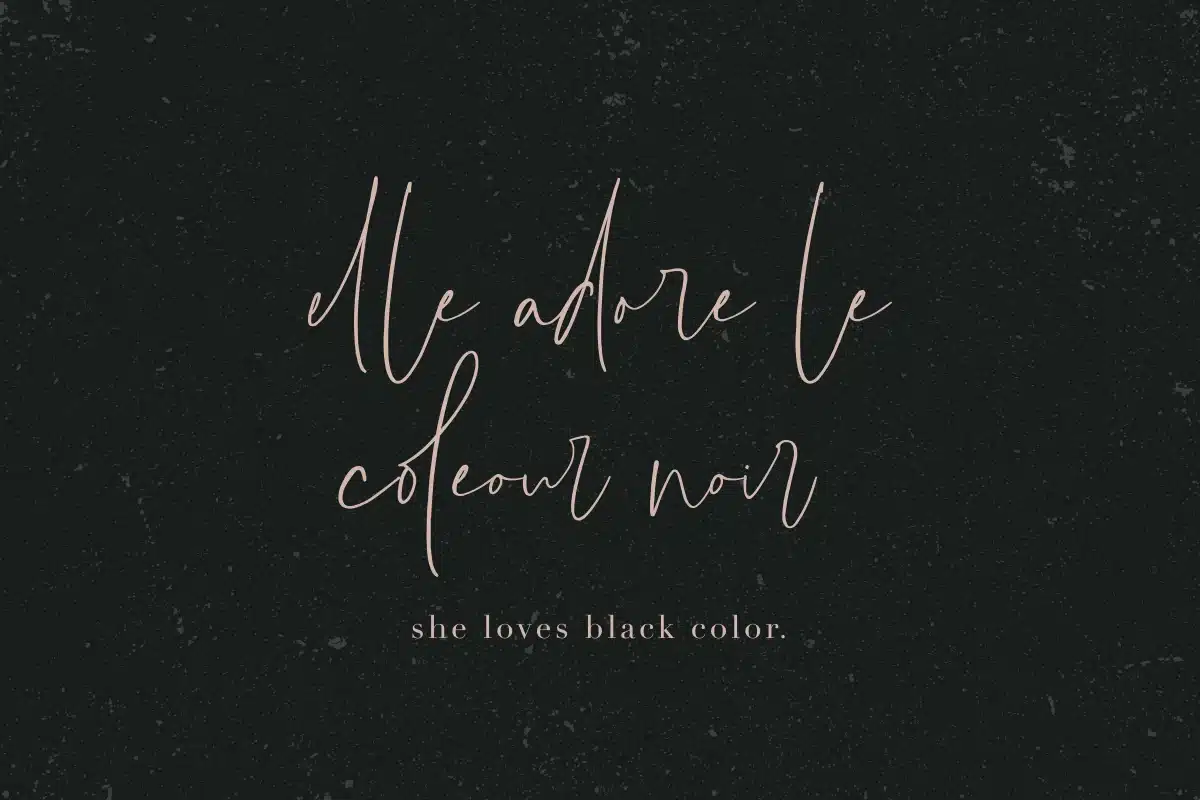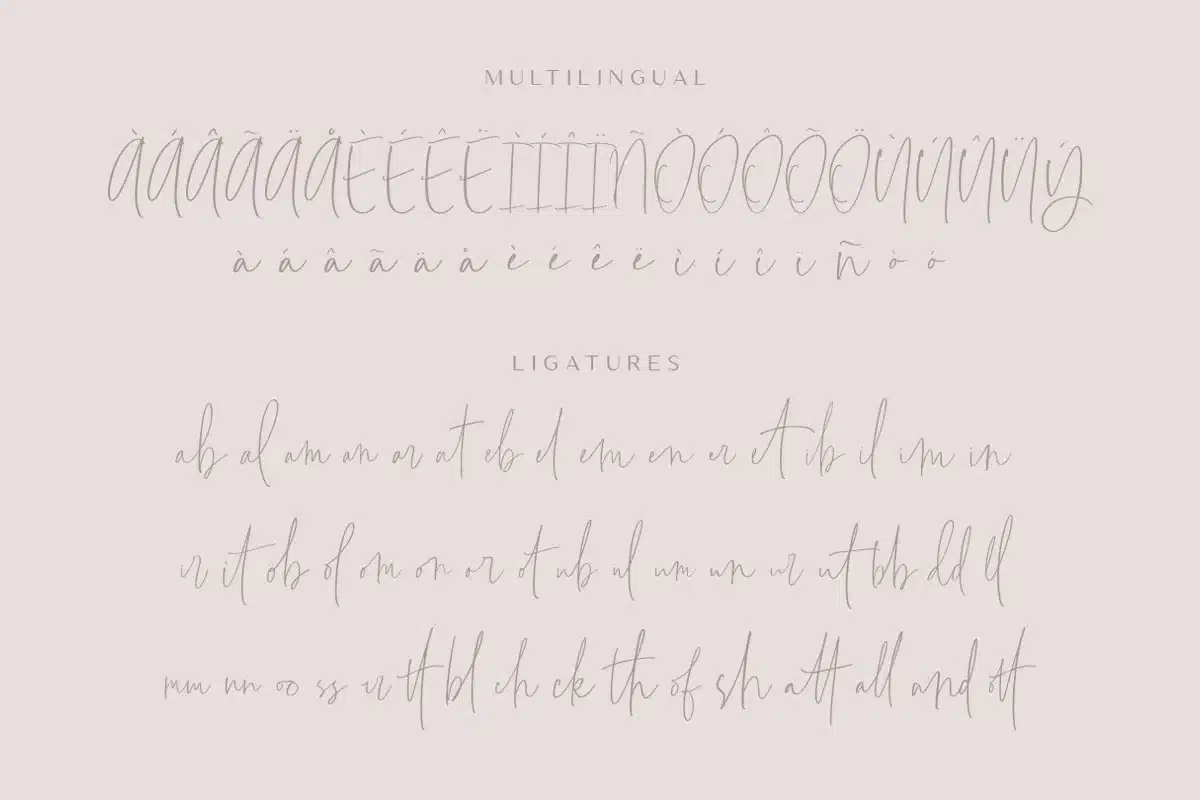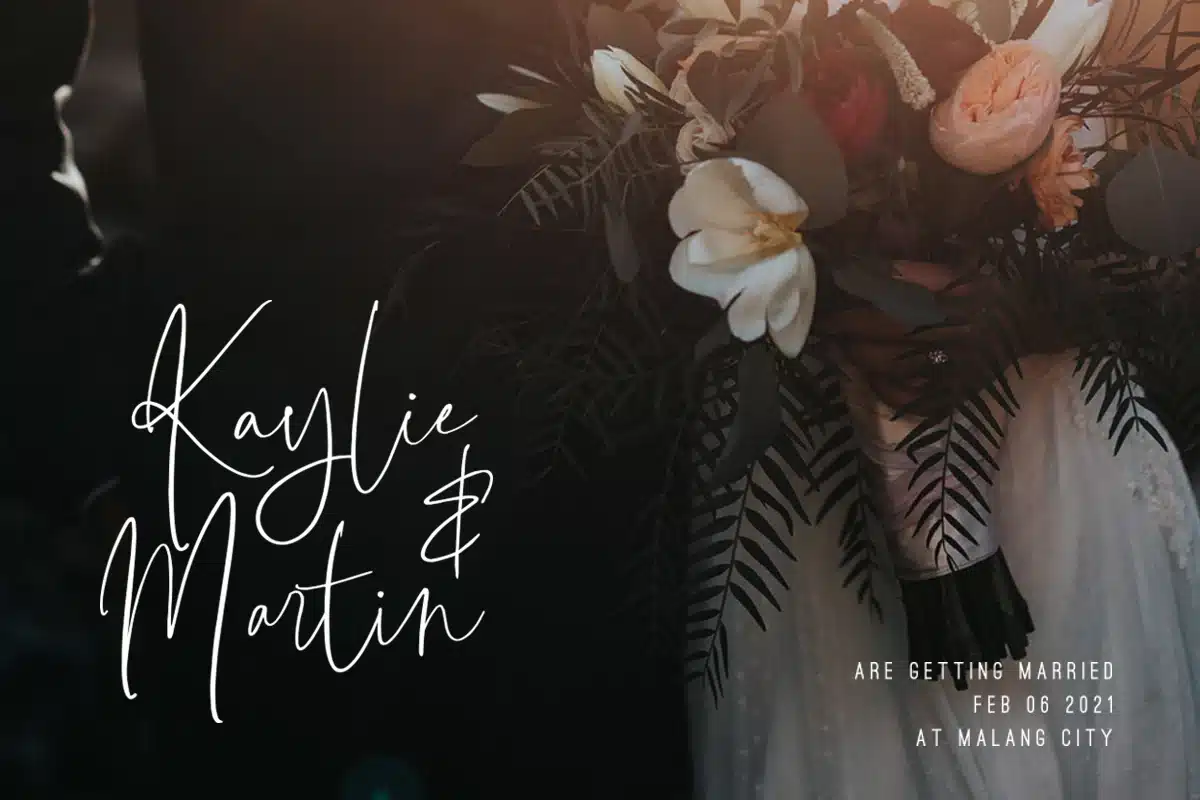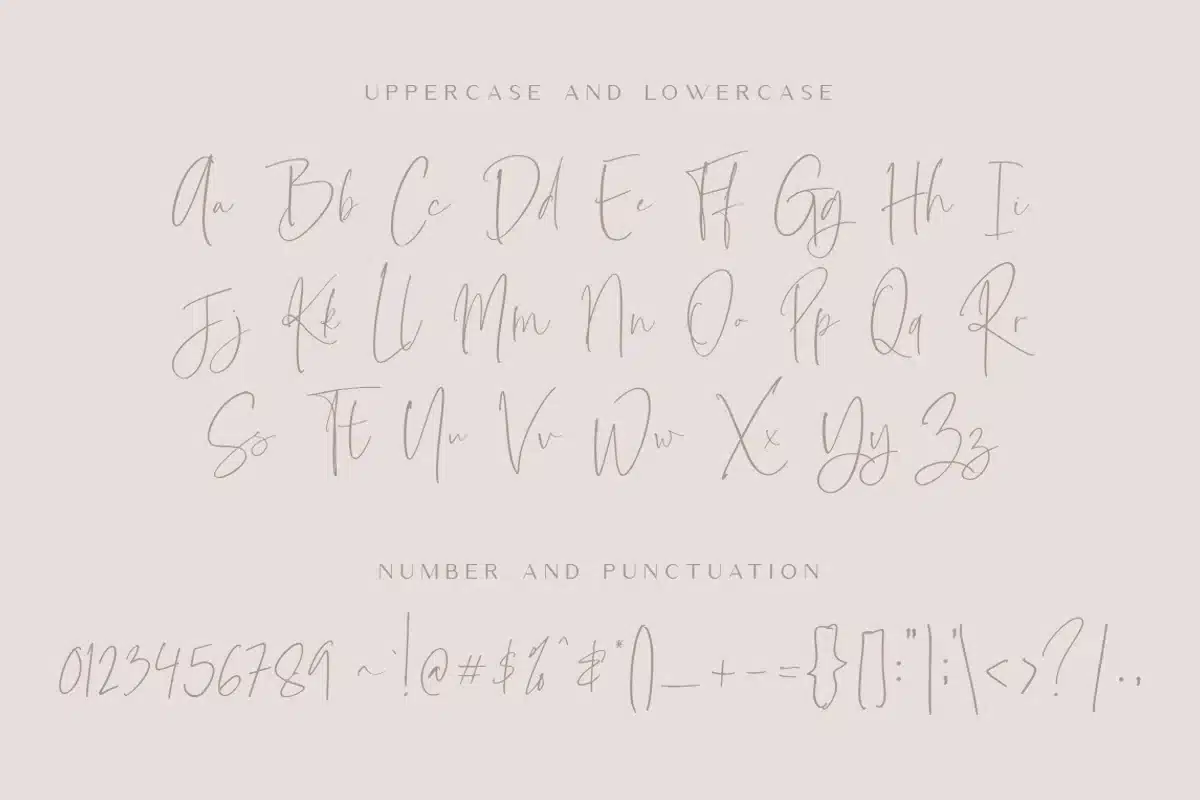
Bottomland – Modern Signature Script Font
Say hello to New Stylish Script, Bottomland!
This font combines stylish letter shapes with a contemporary twist. It's the perfect fit for all luxury projects, such as elegant logos, printed quotes, lovely wedding invitation cards, social media headers, product packaging, and a lot more!
It includes a full set of elegant uppercase and lowercase letters, multilingual symbols, numerals, and punctuation. The font has a smooth wet ink texture, so would be perfect for all types of printing techniques such as embroidery, laser cutting, gold foil, etc.
This font has Regular and Bold family, so you can choose the best for your work:)
- More than 100 glyphs